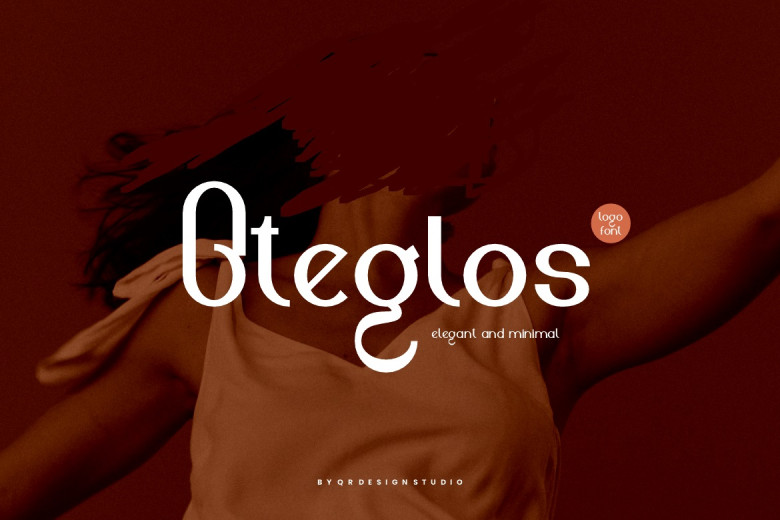
Oteglos Font
Oteglos Font is a decorative display and it has that sort of perception of being daring and unique. The font can be used in any branding projects such as logo design, sports and many others. Superlative for a broad spectrum of settings. In the free version offered it is possible to type all letters, both upper and lower case as well as several special symbols.
Oteglos Sans Serif Font